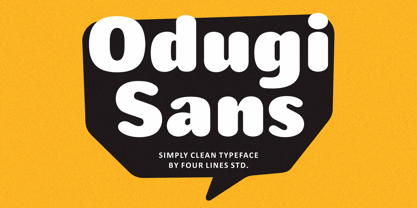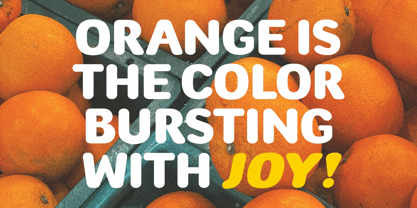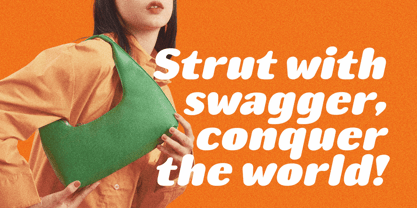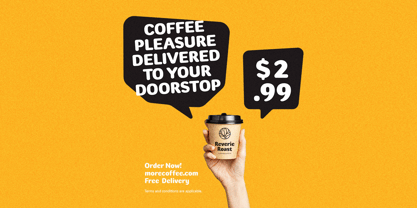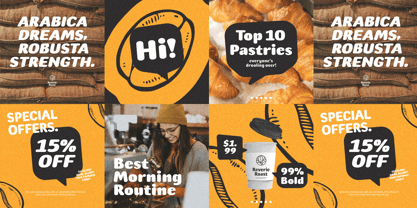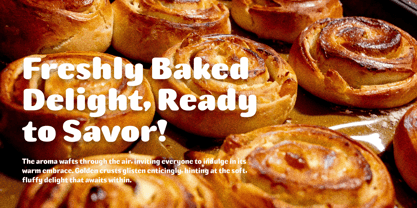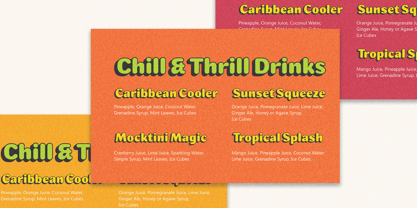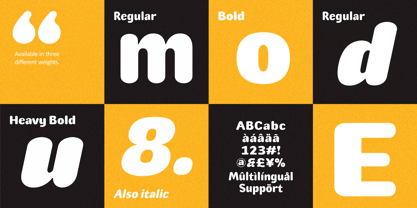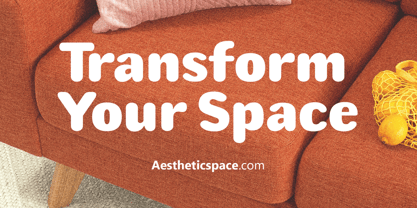
Odugi Sans
The Odugi Sans Font Family was designed by Zain Fahroni and published by Four Lines Std. Odugi Sans contains 6 styles and family package options. More about this family
Odugi Sans is a clean and modern sans serif font with a versatile character. Designed to be simple yet distinctive, it works well across a variety of design needs — from branding and packaging to editorial layouts and digital content.
Available in three weights (Regular, Bold, heavy) and matching Italics, Odugi Sans offers flexibility and clarity, making it a solid choice for both display and body text. Its straightforward shapes and balanced proportions make it easy to read while maintaining a subtle personality.
Features:
• 3 weights: Regular/ Bold/ Heavy
• Italic styles for each weight
• Uppercase and lowercase
• Multilingual support